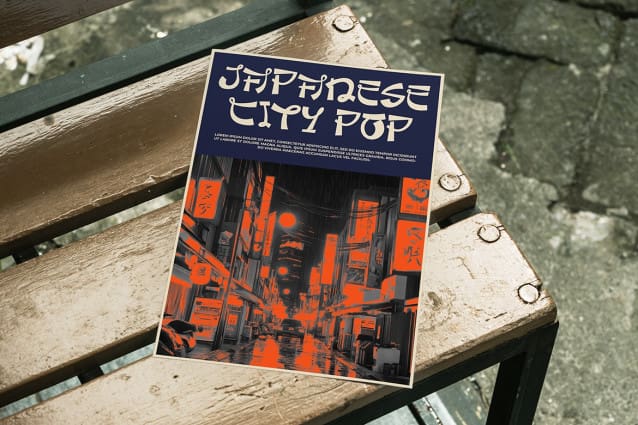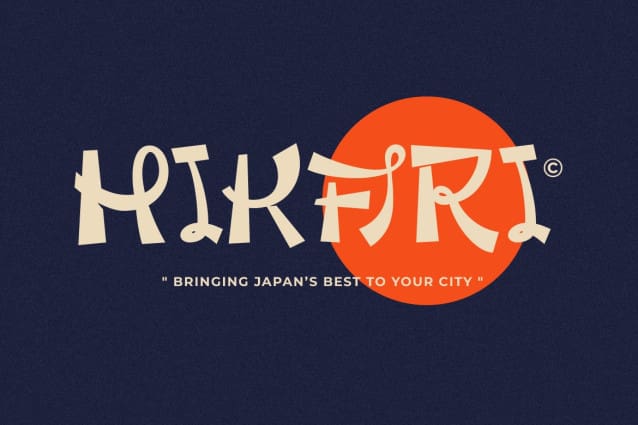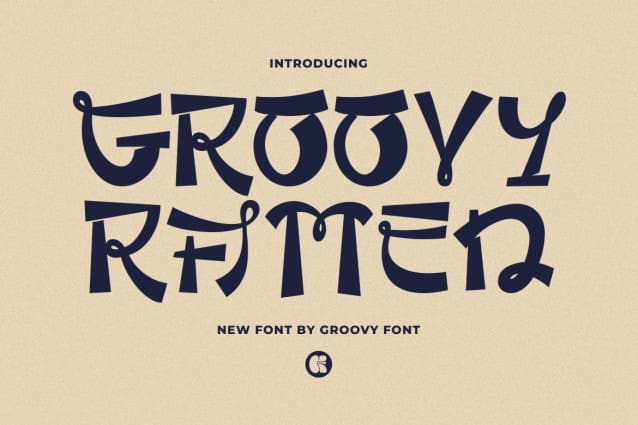
Groovy Ramen Font
Groovy Ramen font is a decorative display font inspired by Japanese writing, featuring bold and modern design elements. This font captures the essence of Japanese aesthetics while infusing a contemporary and stylized twist. The bold strokes and intricate details of Groovy Ramen create a visually striking appearance, making it an excellent choice for eye-catching headlines, posters, and branding materials.
The fusion of traditional Japanese influences with a modern sensibility gives this font a unique and dynamic character, ideal for designs that seek to blend cultural references with a fresh and innovative approach.